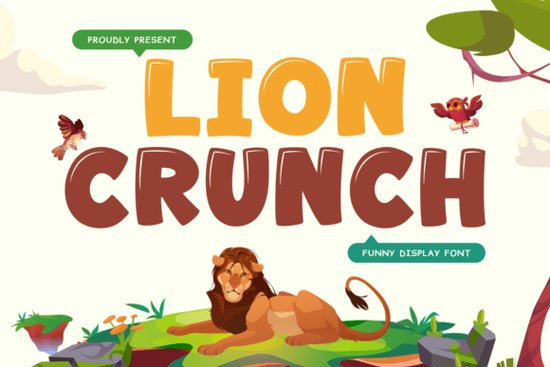
If you're looking for a friendly, high-energy font that feels like a burst of sunshine on paper especially for kids’ projects Lion Crunch Font is a thoughtful, well-crafted choice. It’s not just bold or playful in a generic way; it’s intentionally designed with soft curves, generous spacing, and cheerful proportions that make it easy to read and full of personality. Whether you’re making classroom posters, birthday invites for a jungle-themed party, or printable activity sheets for early learners, Lion Crunch brings warmth and approachability without sacrificing clarity.
What makes Lion Crunch work so well for children’s designs?
It starts with intention. The designer didn’t just add rounded edges and call it “cute.” Every letterform balances whimsy with function: uppercase letters have gentle bounce, lowercase characters sit comfortably on the baseline, and punctuation marks (like exclamation points and hearts) are subtly stylized not distracting, but delightful. That attention shows up most clearly when printed at smaller sizes, like on flashcards or labels, where readability matters just as much as charm.
This isn’t a novelty font meant for one-off headlines. Lion Crunch includes standard OpenType features like ligatures and alternate characters small touches that help your text feel more hand-crafted and less digital. And because it’s built for real-world use, it pairs easily with clean sans-serifs (like Sportex Font) for contrast, or with other playful options like Aaksaraan Nordhavn Font for layered, storybook-style layouts.
Where do people actually use Lion Crunch?
Most often, it shows up in places where tone and trust matter especially with young audiences and the adults who care for them. Think:
- Birthday invitations and party printables (think “Roar & Play!” or “Jungle Adventure Day”)
- Classroom name tags, behavior charts, and themed learning centers
- Toy packaging and product labels where friendliness helps build brand familiarity
- Early-reader books and phonics worksheets, where letter shapes support visual recognition
- Social media posts for preschools, daycares, or family-focused small businesses
It also works surprisingly well for low-stakes branding like a local kids’ yoga studio or a handmade soap line with animal motifs. Because it avoids being overly cartoony or babyish, it scales gracefully from a sticker on a lunchbox to a banner above a play area.
How does it compare to other popular kids’ fonts?
Lion Crunch sits comfortably between high-energy display fonts and softer, more educational ones. It’s bolder and more animated than Goodwin Font, which leans into gentle script-like flow but still keeps its structure intact. Compared to Urban Blast Font, it trades urban edge for warm accessibility, making it better suited for nurturing environments. And unlike Belindra Font, which has elegant flourishes, Lion Crunch stays grounded in simplicity ideal if your audience includes emerging readers or caregivers scanning quickly.
None of these fonts are “better” universally it depends on your project’s voice and audience. But if your goal is joyful clarity (not just decoration), Lion Crunch earns its place in your toolkit.
• Test it at multiple sizes especially 18–24pt for headings and 14–16pt for body text in printables. Its generous x-height helps it hold up well even when scaled down.
• Avoid pairing it with other highly decorated fonts. Let Lion Crunch shine, then anchor it with something neutral like Montserrat or Nunito.
• Keep color contrast in mind: light yellow text on white can look cheerful on screen but may fade when printed. Try deep teal, burnt orange, or charcoal gray for reliable legibility.
For designers and small business owners who regularly create for families and classrooms, Lion Crunch isn’t just another font it’s a reliable, expressive tool that helps your message land with kindness and energy. And that kind of consistency? It builds recognition, trust, and repeat customers.